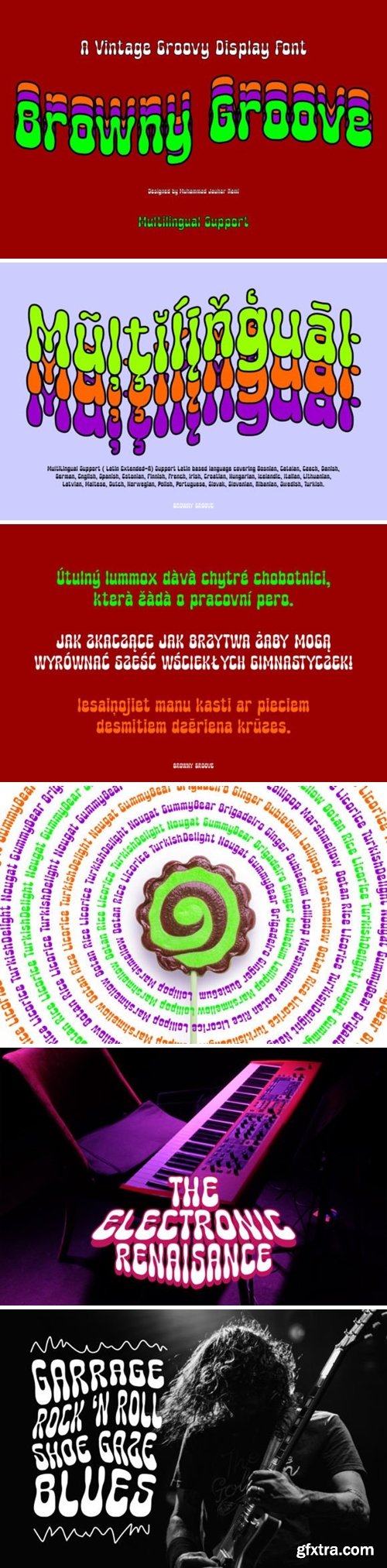
Browny Groove Font
Browny Groove is a funky retro psychedelic display font. Use this display font to add that special retro touch to any design idea you can think of! Masterfully designed to become a true favorite, this font has the potential to bring each of your creative ideas to the highest level! This font is PUA encoded which means you can access all of the amazing glyphs and ligatures with ease!